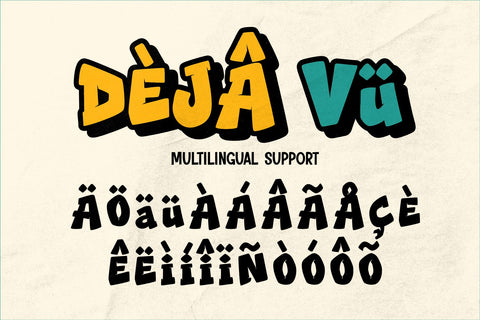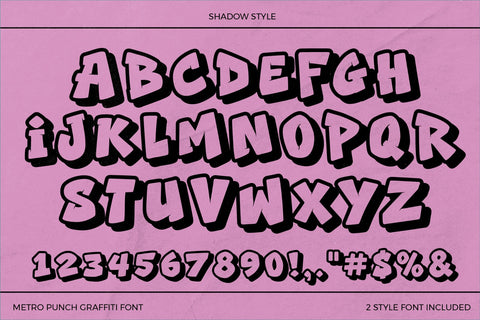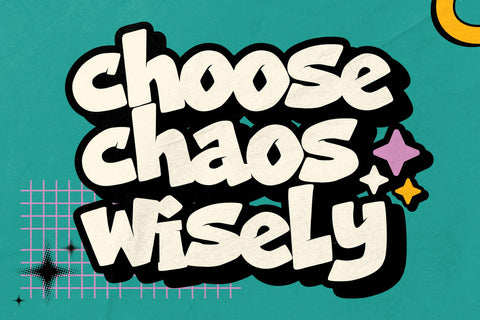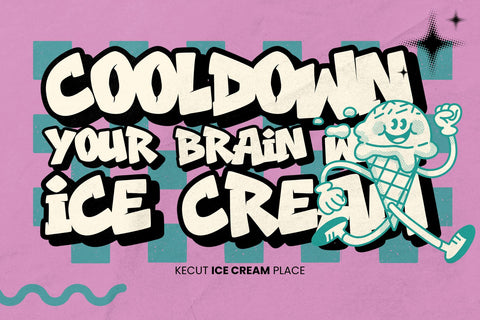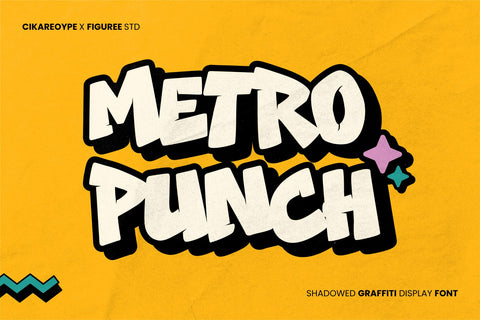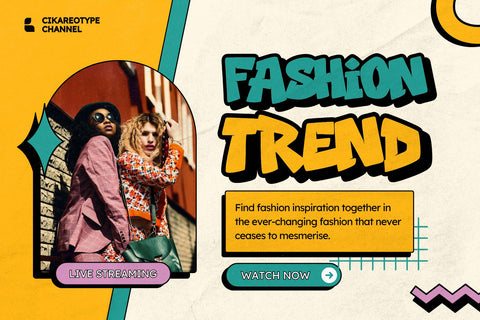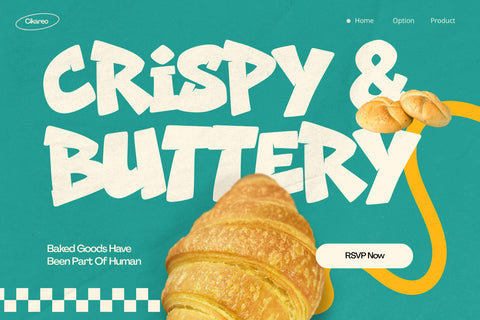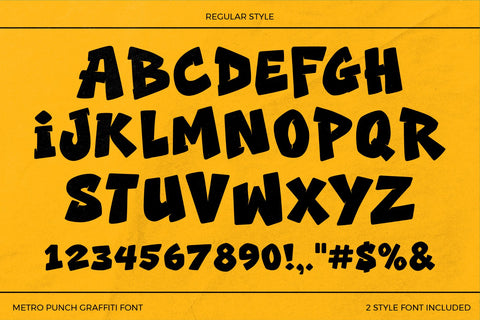
Metro Punch – Shadowed Retro Graffiti Font
Metro Punch is a bold shadowed retro graffiti font inspired by old-school street lettering, vintage signage, classic skate graphics, and urban poster art. Its strong uppercase characters are enhanced by a distinctive shadowed appearance, creating extra depth and visual impact while maintaining the energetic personality of traditional graffiti typography.
Metro Punch is perfect for streetwear branding, vintage posters, T-shirt graphics, skate designs, album covers, graffiti logos, stickers, packaging, music artwork, event graphics, social media content, and urban advertising. Its retro construction works especially well with distressed textures, halftone patterns, bold colors, vintage illustrations, and street-inspired compositions.
The font includes uppercase characters, multilingual support, numbers, and punctuation, providing a versatile character set for creative projects across different languages. Whether you're designing a retro graffiti logo, bold apparel graphic, music poster, or vintage-inspired campaign, Metro Punch adds strong street character and dimensional typography to every headline.